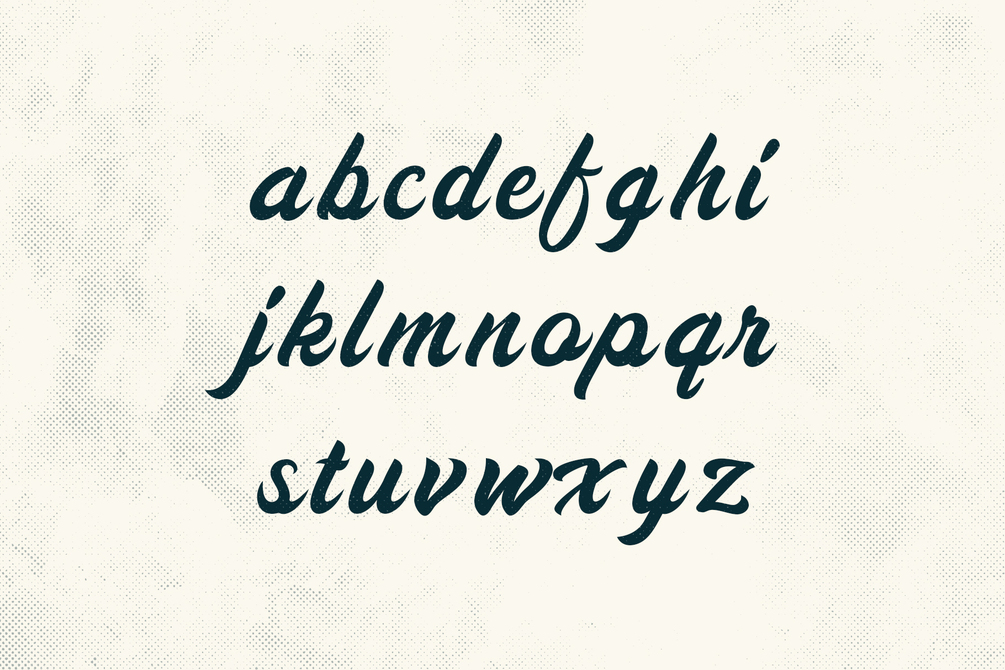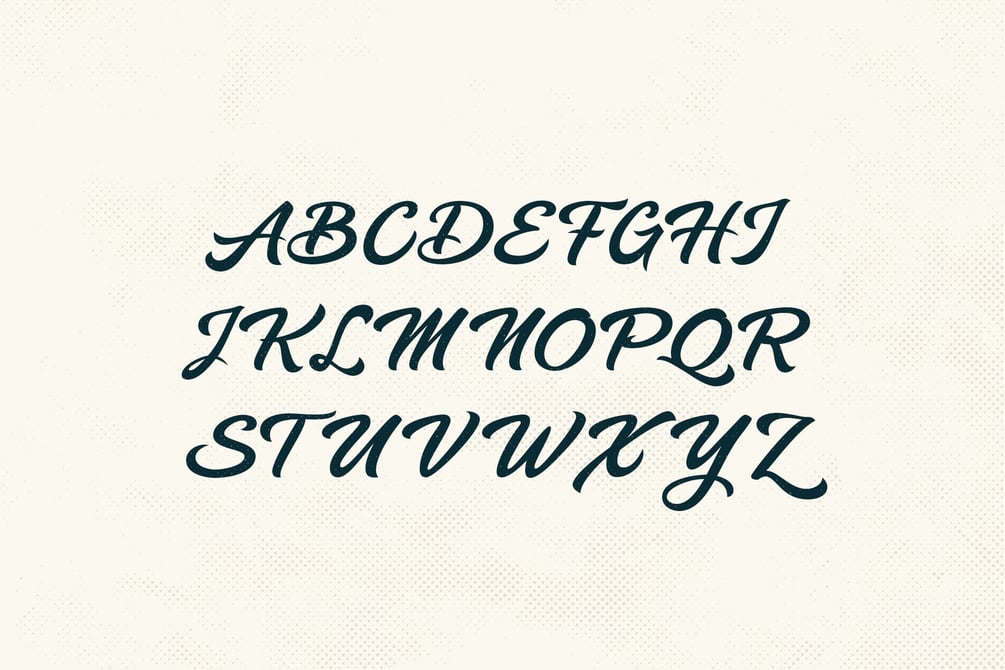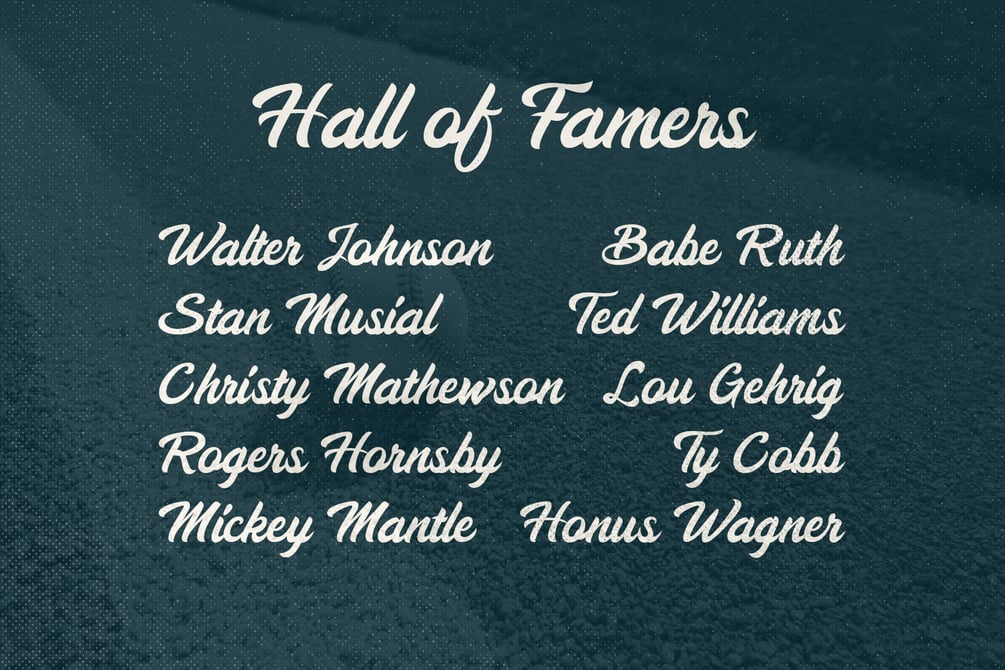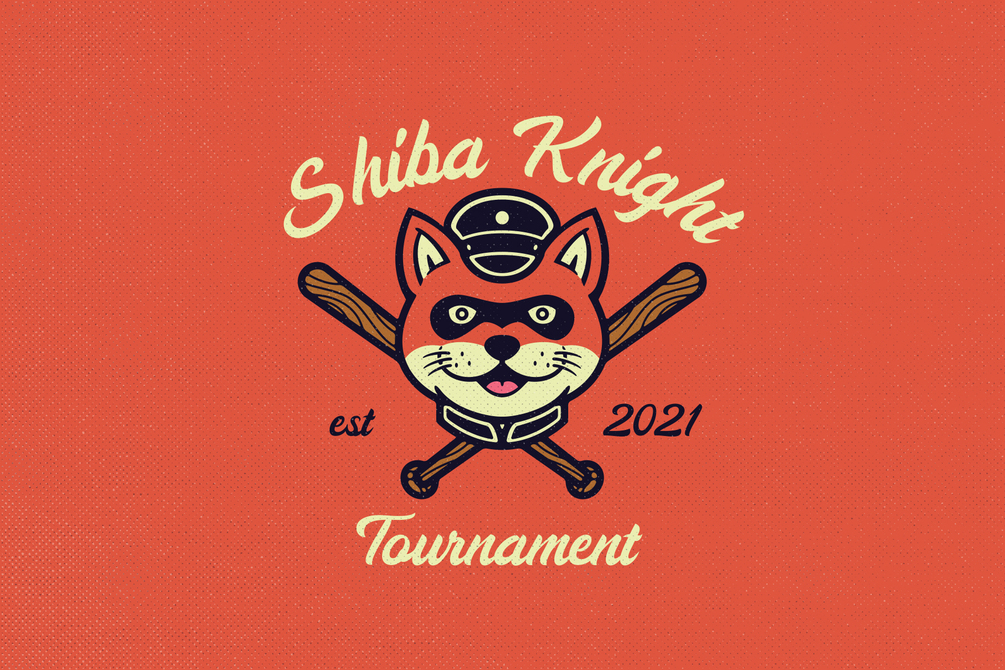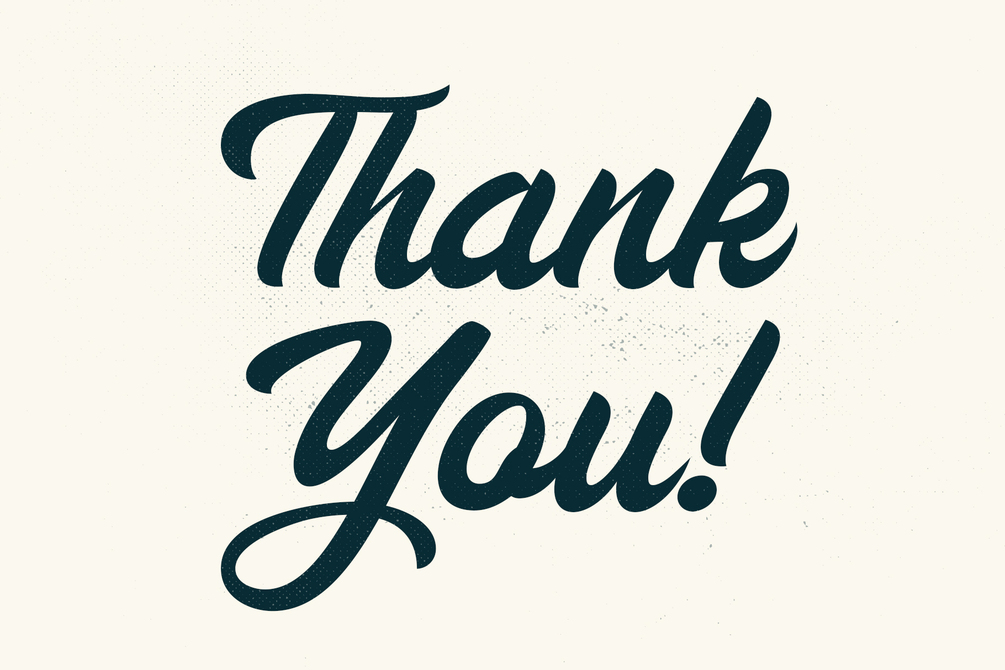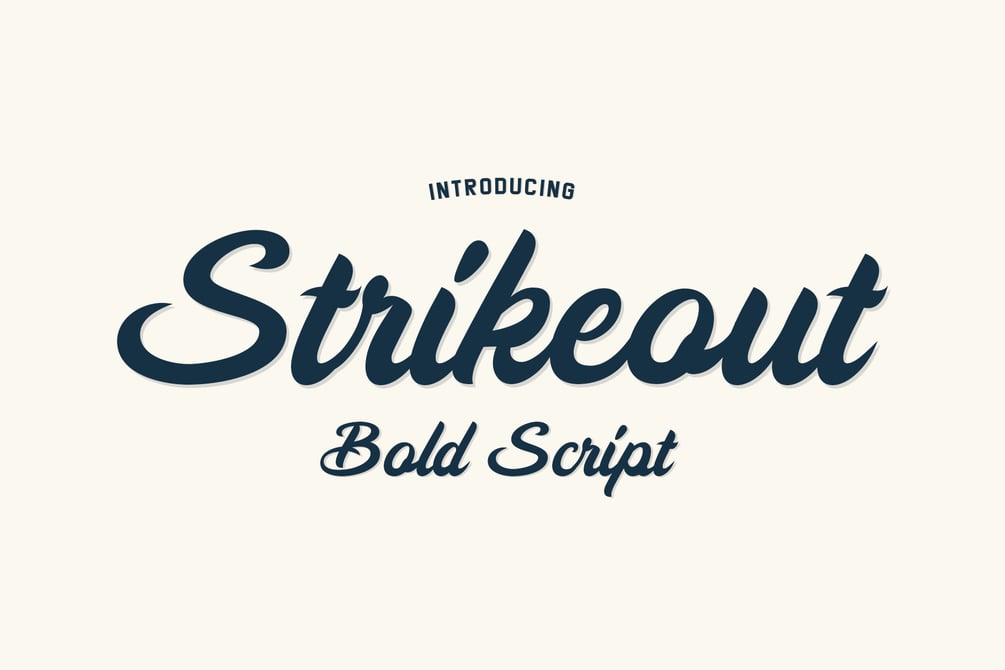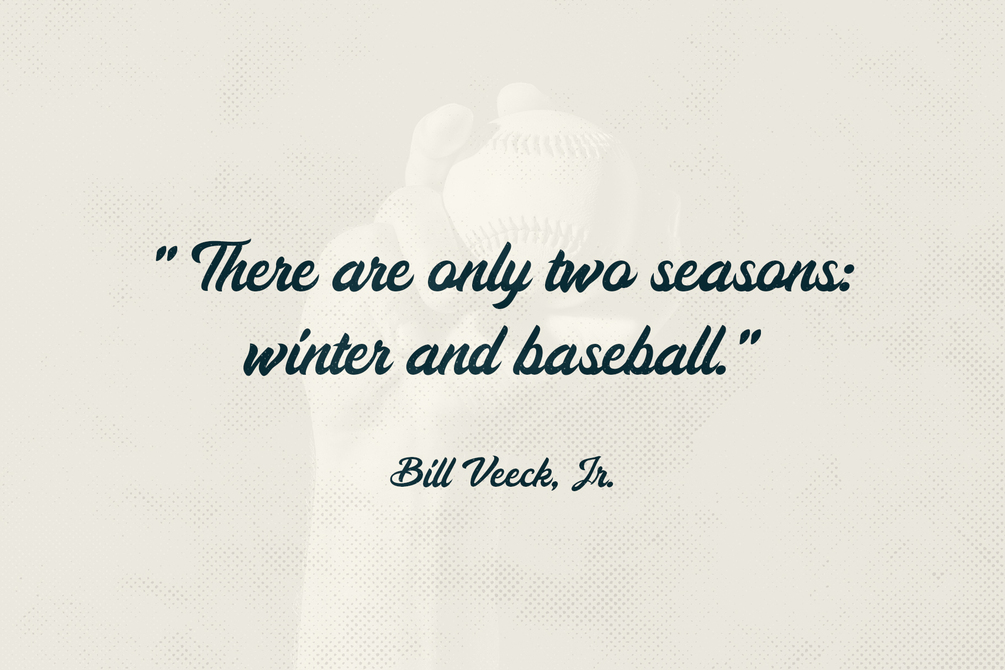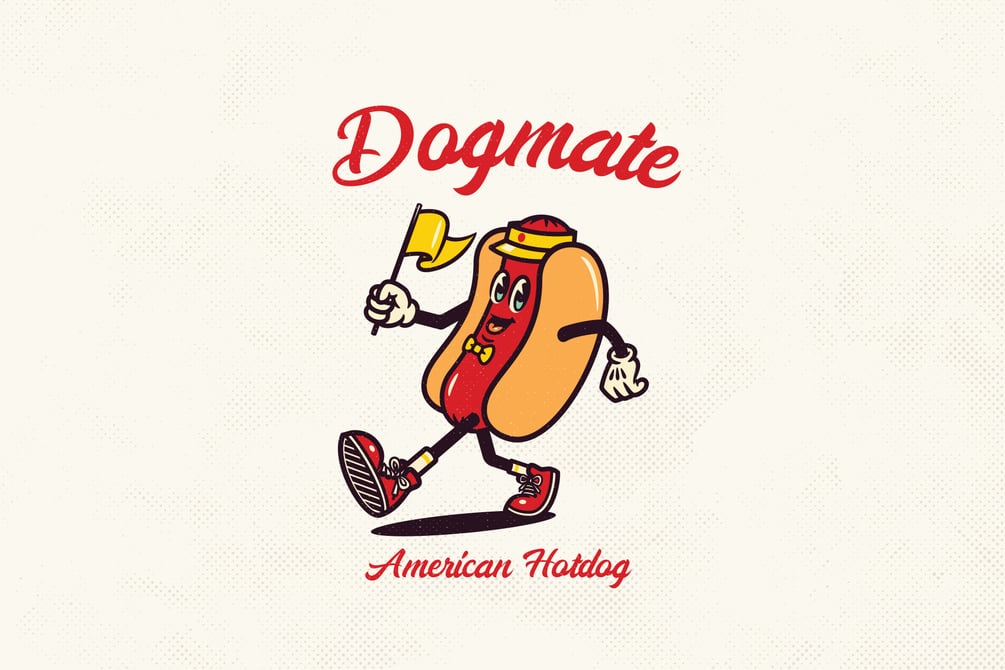
Strikeout - Bold Script Typeface
Strikeout is a beautiful script typeface inspired by 1940s and 1950s baseball era. This font includes uppercase and lowercase letters, numerals, and special characters. Not only does this font look sleek, but it's also very legible.
Strikeout allows you to create hand lettering in an instant. This super handy typeface is ideal for logos, product packaging, headers, posters, merchandise, handwritten quotes, social media, greeting cards, and much more. If you love baseball and retro typography, then this font is for you!